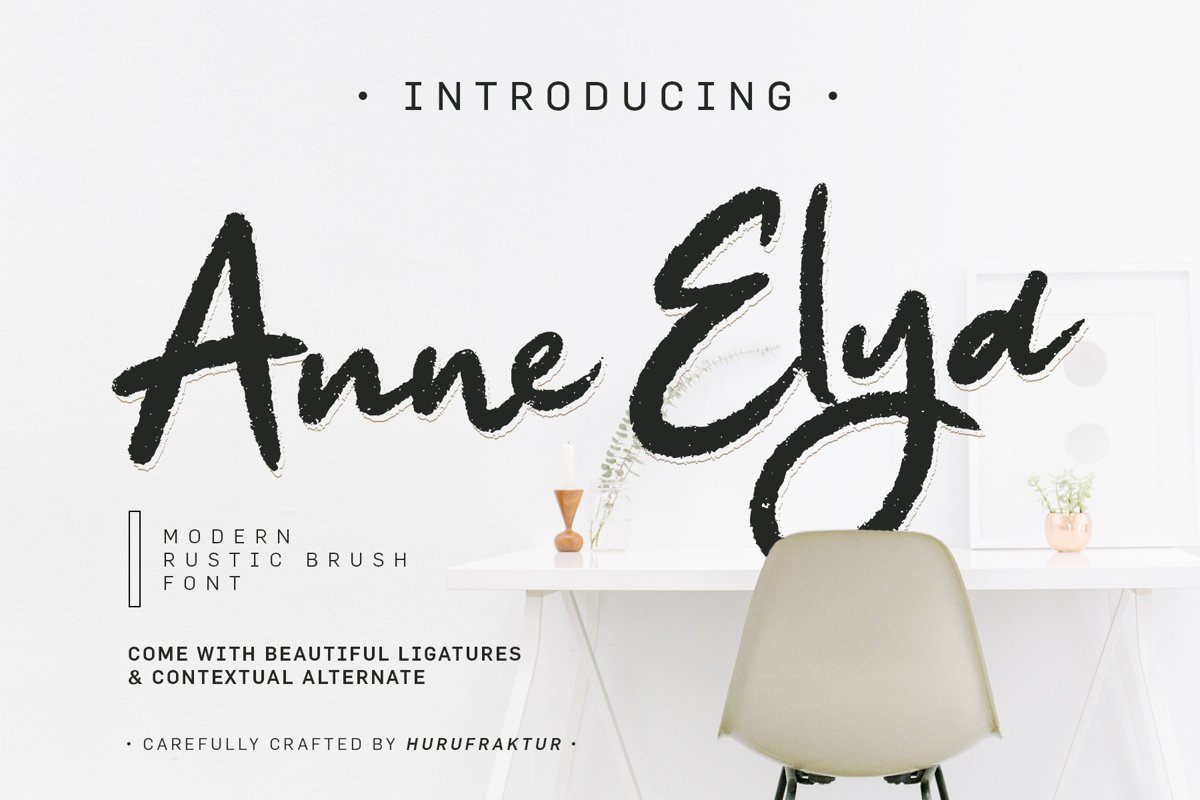
Anne Elya
Introducing Anne Elya, A modern rustic brush font.
Anne Elya is This font is perfect for quotes, shirt designs, websites, branding, children's designs,  blogs, logos, invitations and more!
Anne Elya packs a full set of capitals, lowercases, numbers, punctuation, and multilingual, made for giving titles an extra punch as a unique display font. You can make a statement with Anne Elya.
Most accent characters included.
Language Support
Anne Elya supports the following languages; English, French, Italian, Spanish, Portuguese, German, Swedish, Norwegian, Danish, Dutch, Finnish, Indonesian, Malay, Hungarian, Polish, Croatian, Turkish, Romanian, Czech, Latvian, Lithuanian, Slovak, Slovenian
Tons of glyphs